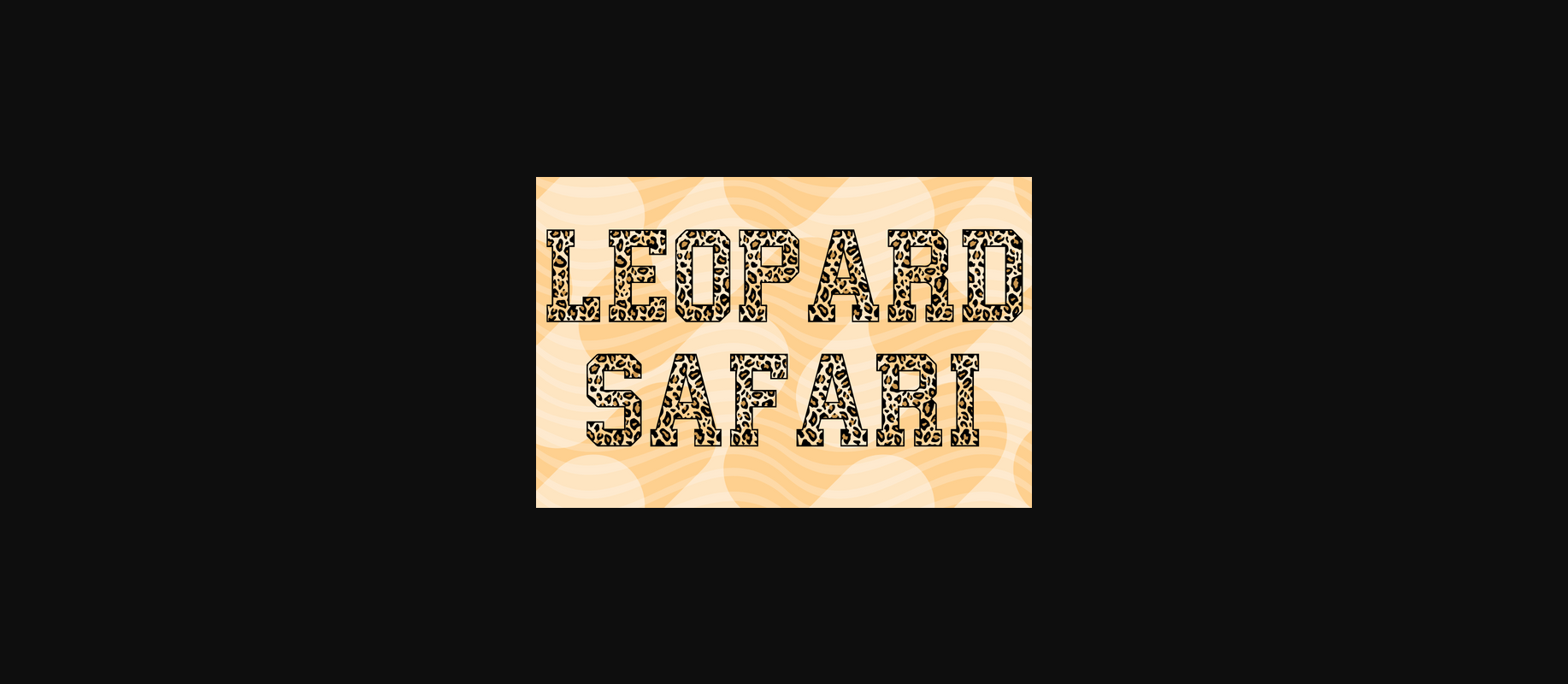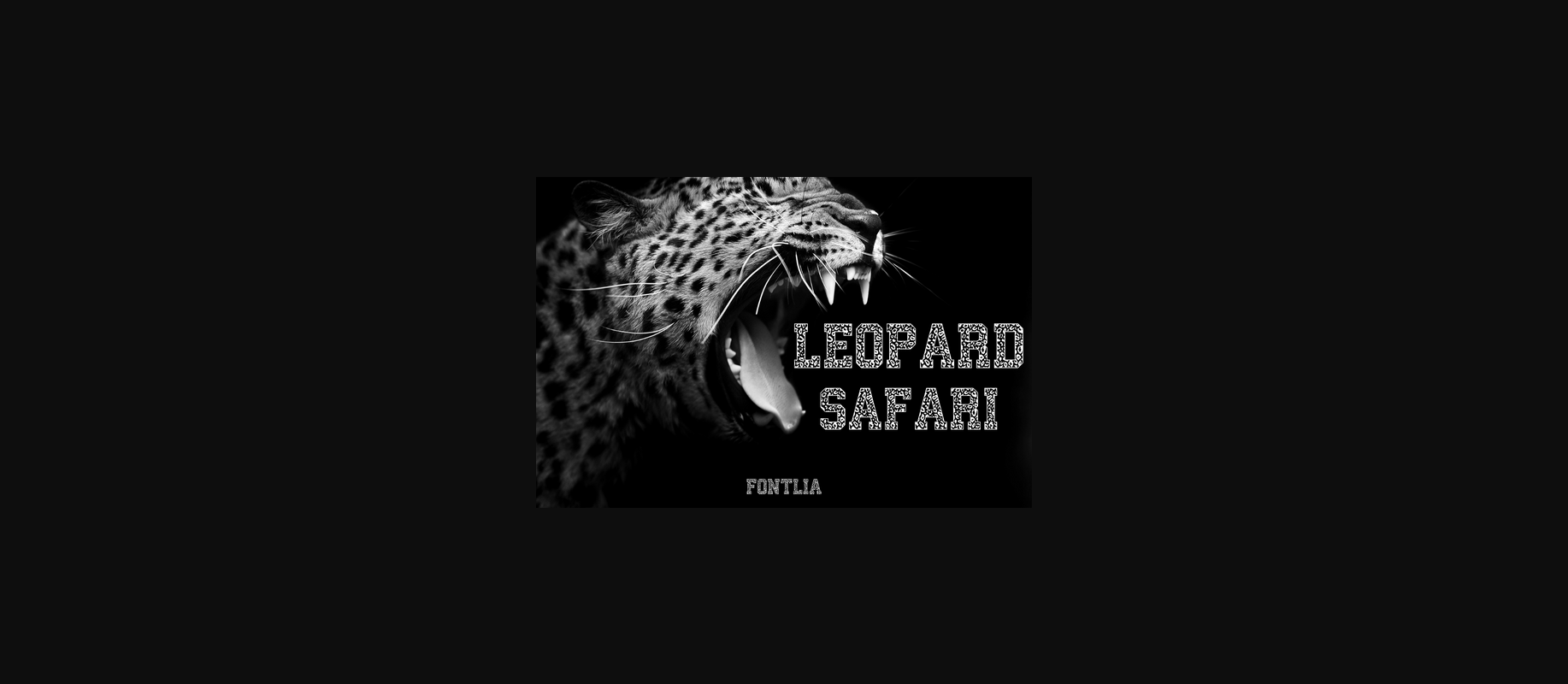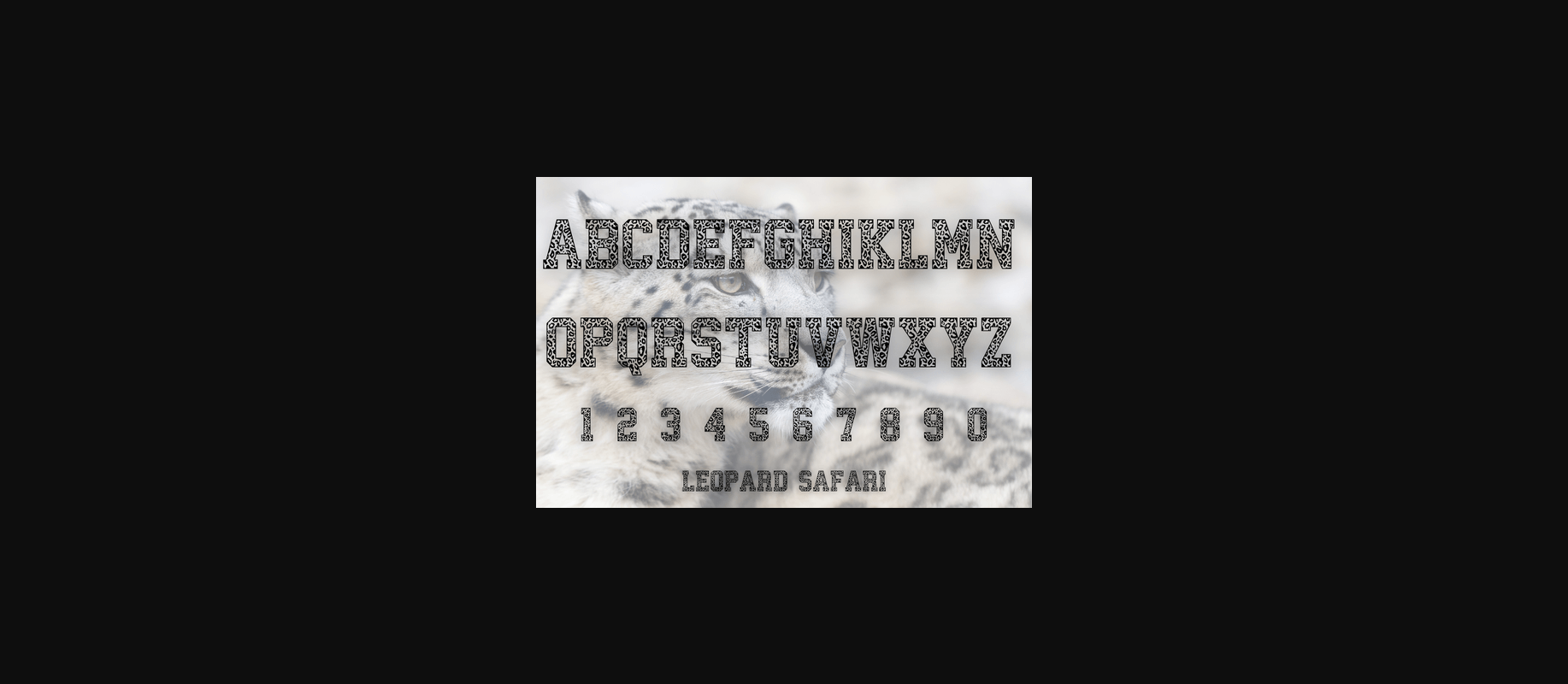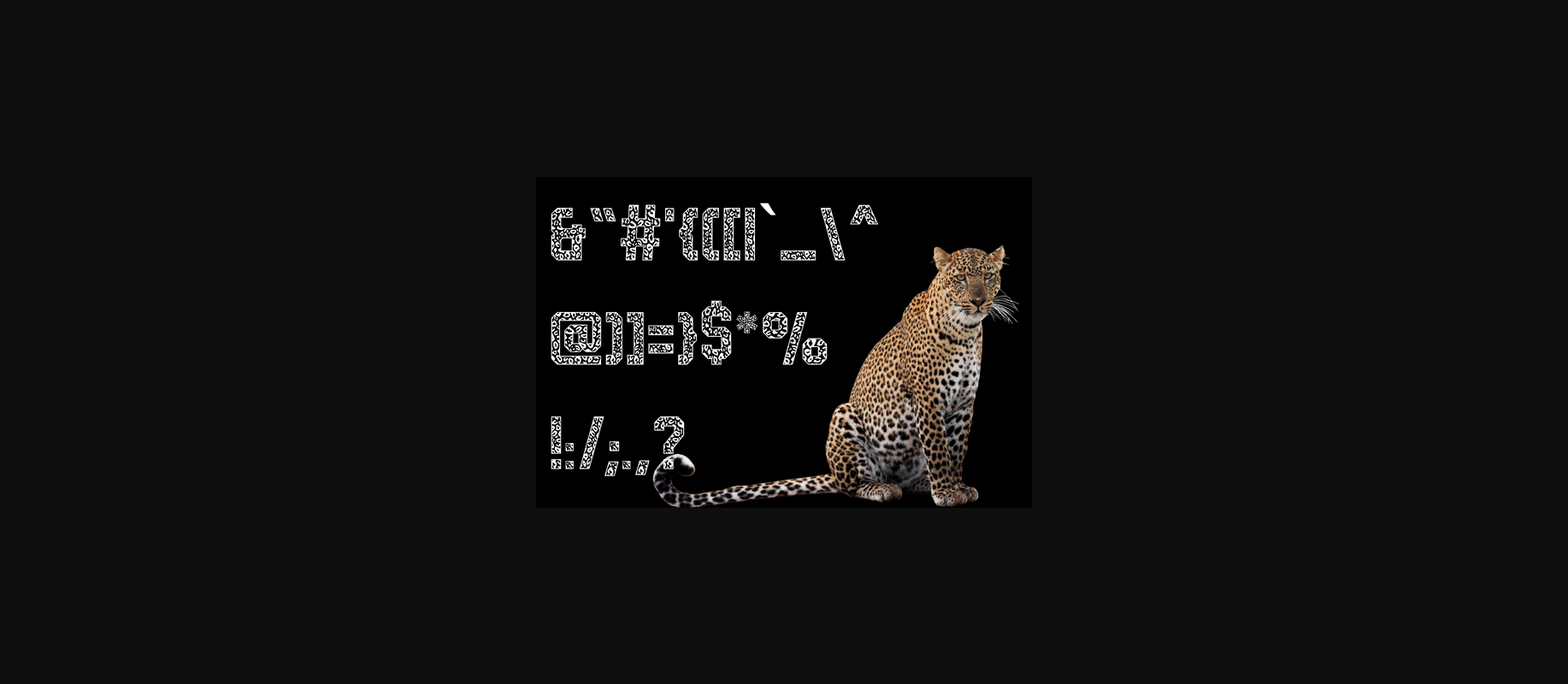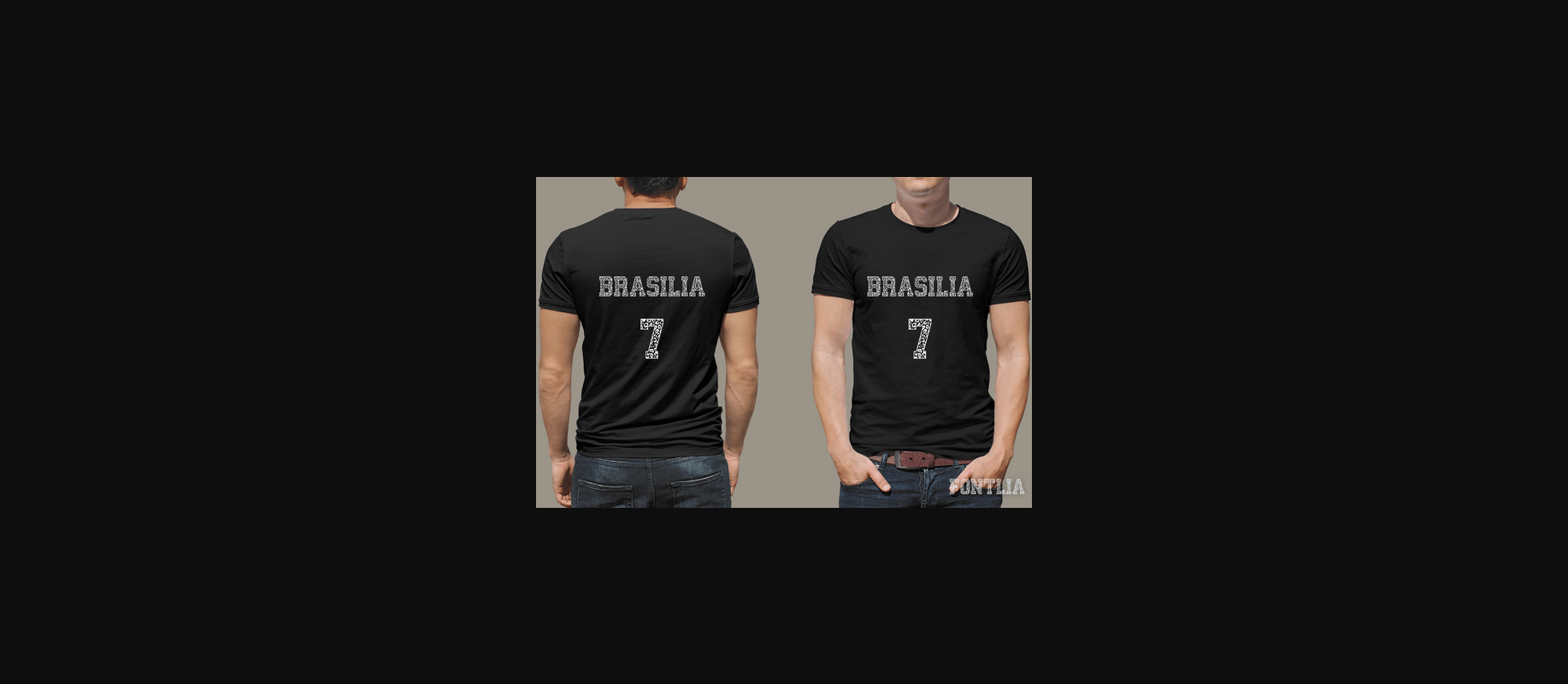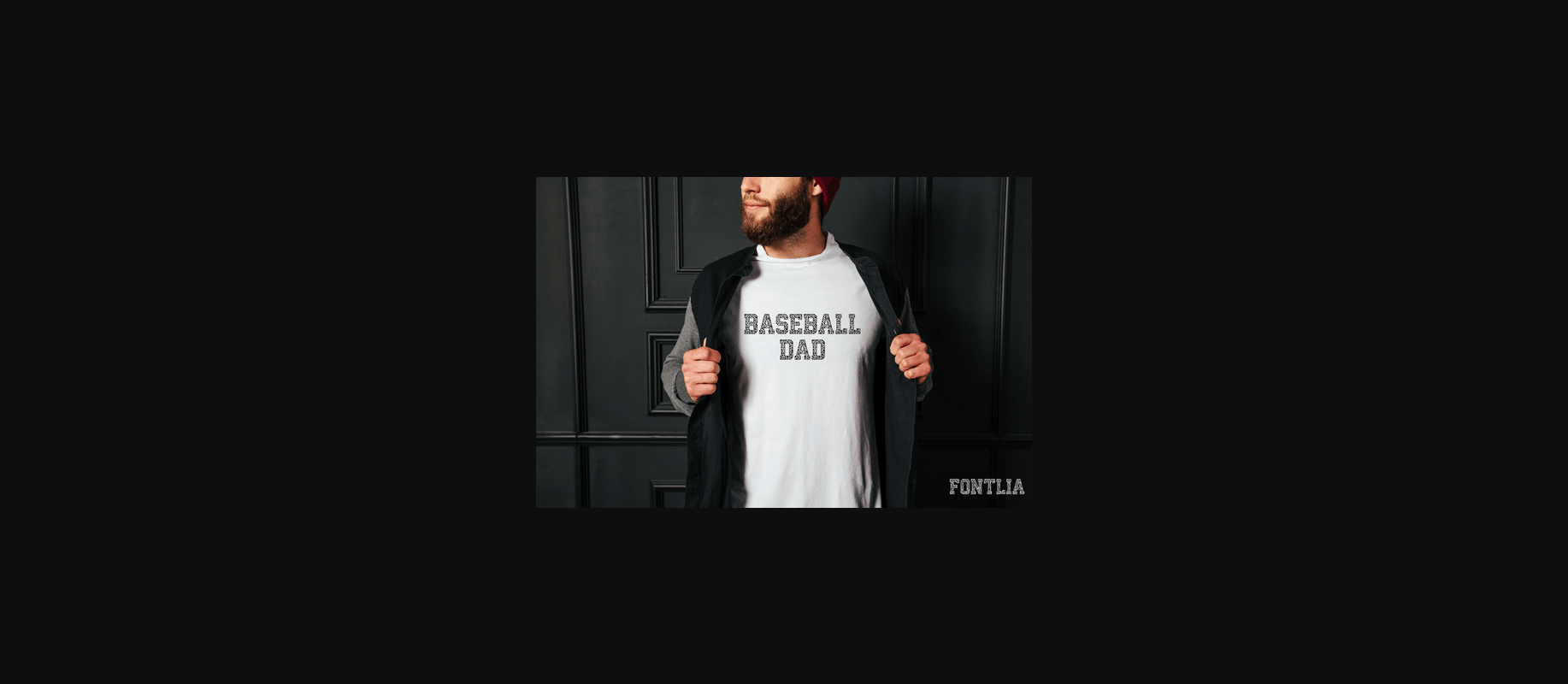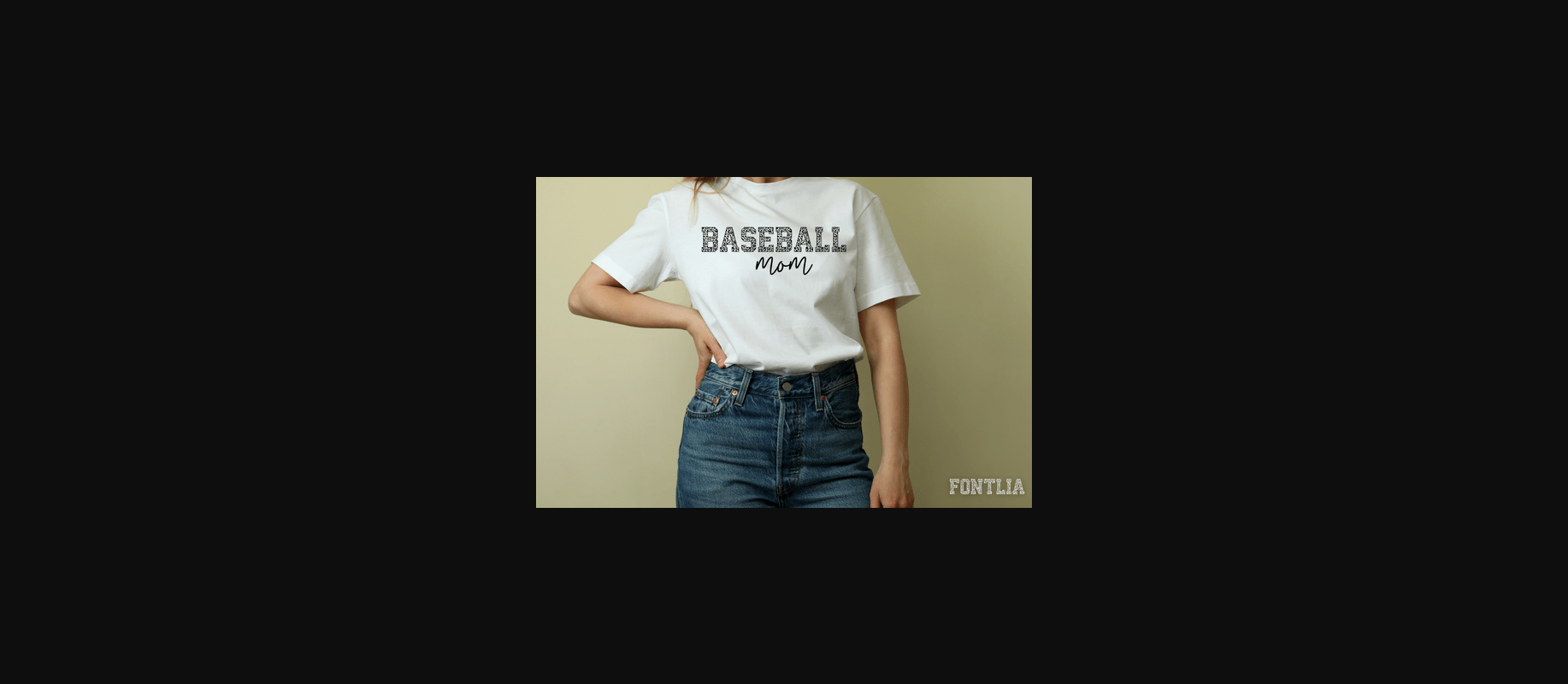
Leopard Safari Font
About Leopard Safari Font
Leopard Safari is a cute and adorable decorative font. This font was particularly crafted for those who need a beautiful and refreshing look to their designs.